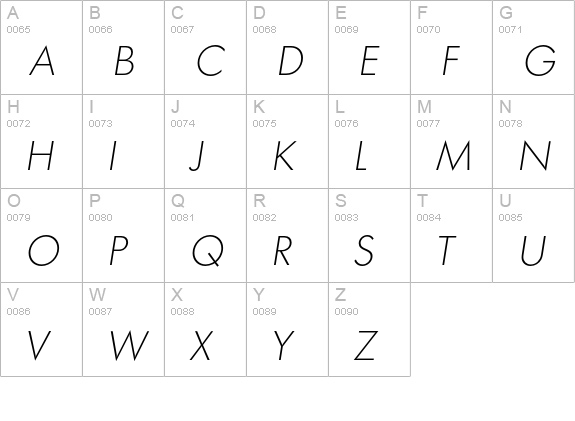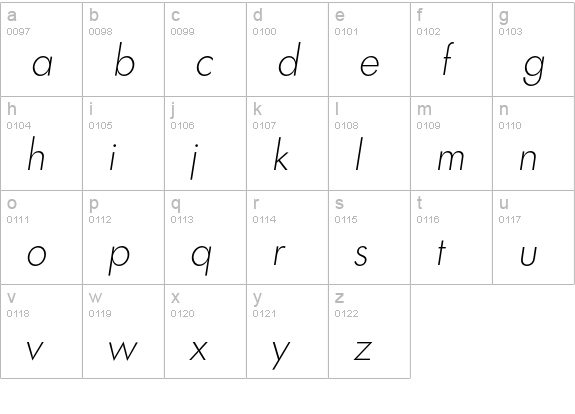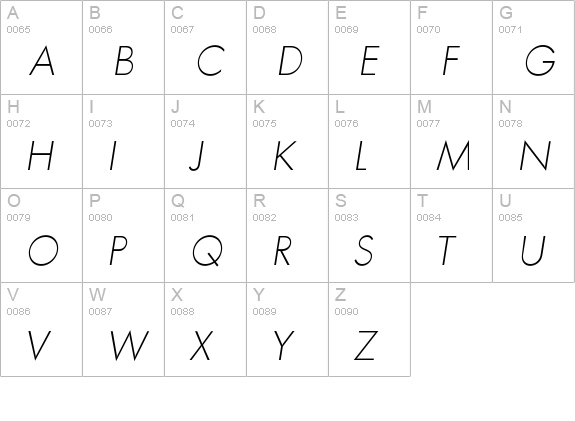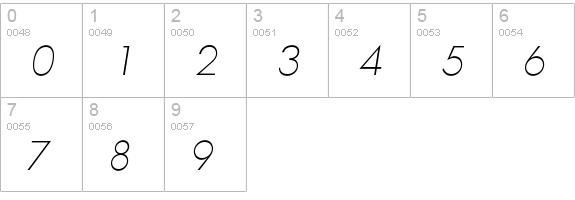
Limerick-XlightIta font is a modern and elegant typeface that exudes sophistication and style. With its sleek and slim letterforms, this font is perfect for adding a touch of class to any design project. The delicate italic styling of Limerick-XlightIta brings a sense of grace and refinement to your text, making it ideal for use in invitations, branding, and editorial projects. What's even better is that Limerick-XlightIta is available for free download at FontsMarket.com. This means you can easily access this beautiful font without any cost, making it a valuable addition to your font collection. Don't miss out on the opportunity to enhance your designs with the timeless beauty of Limerick-XlightIta font. Download it today and elevate your projects to new heights of sophistication and elegance.